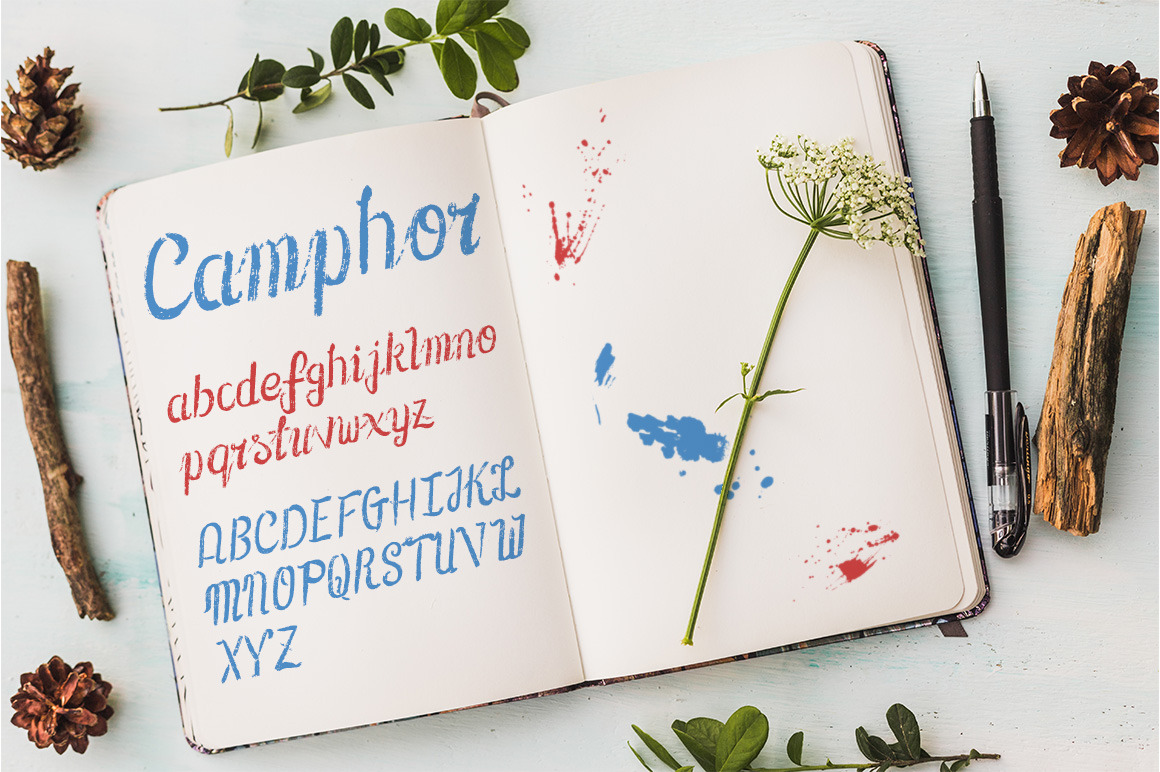
Camphor & Hugo: 2 Fonts + 40 illus.
Camphor is a hand painted, inky-bush script that sits perfectly with another font of mine, "Hugo", a part of my "Brush Serif" collection ... so I bundled them together for you.
● TWO 100% hand inked Fonts
1 Serif: Hugo
1 Script: Camphor
● Over 40 illustrated extras including but not limited to:
speech bubbles, text boxes, flourishes, arrows, foliage and forestry!